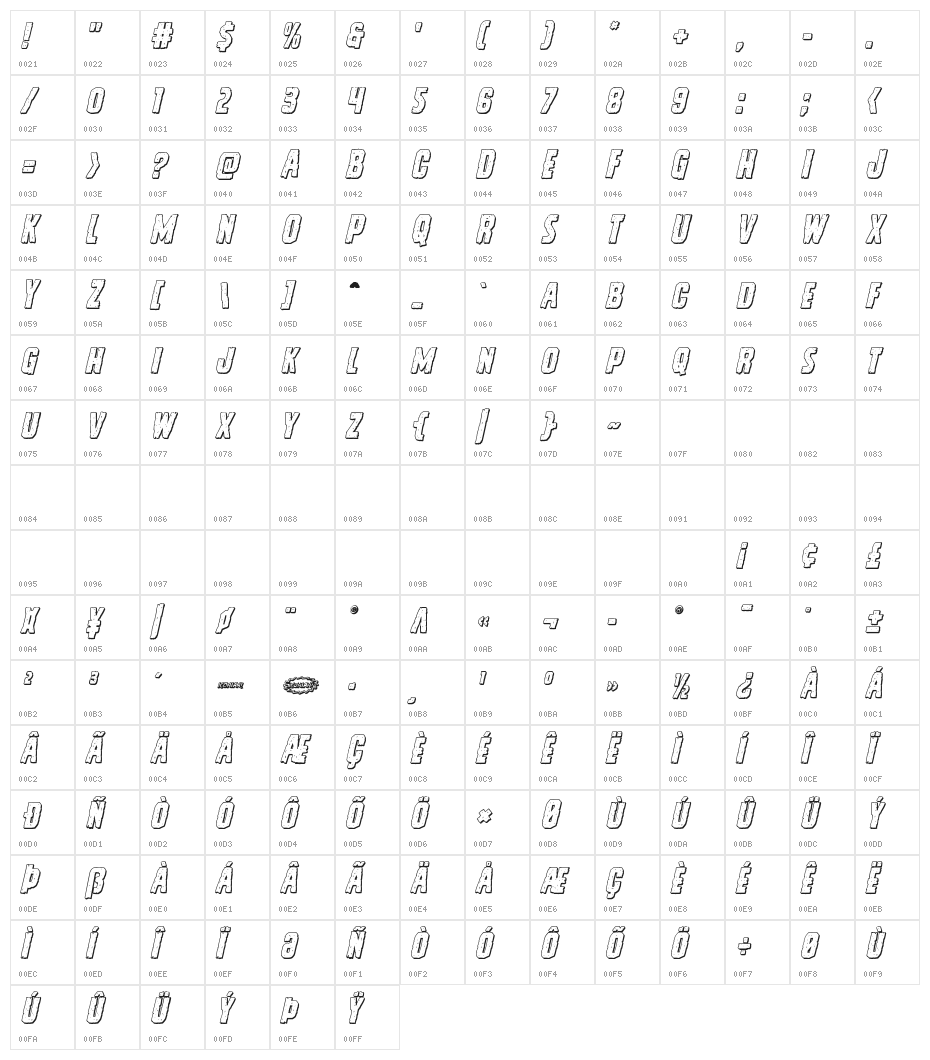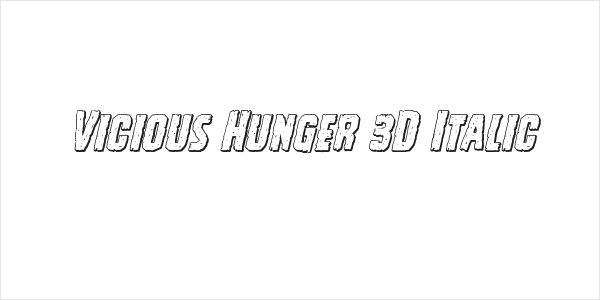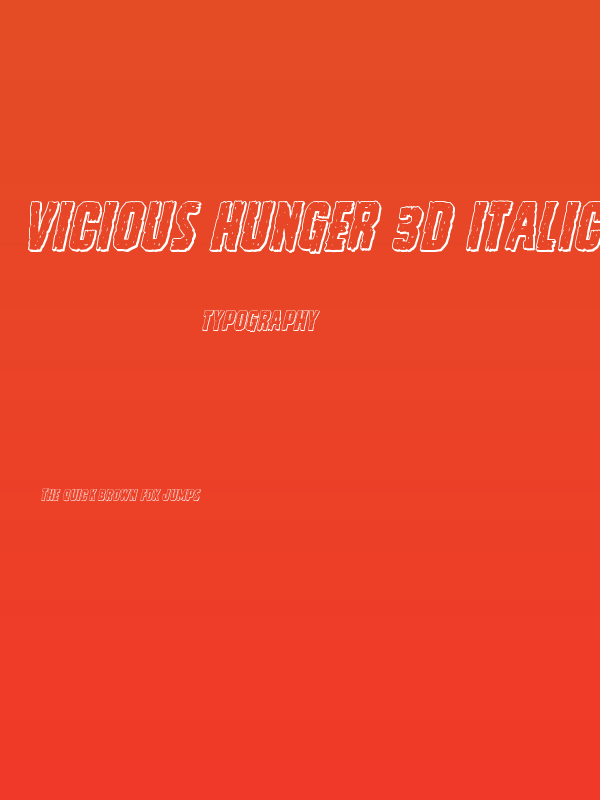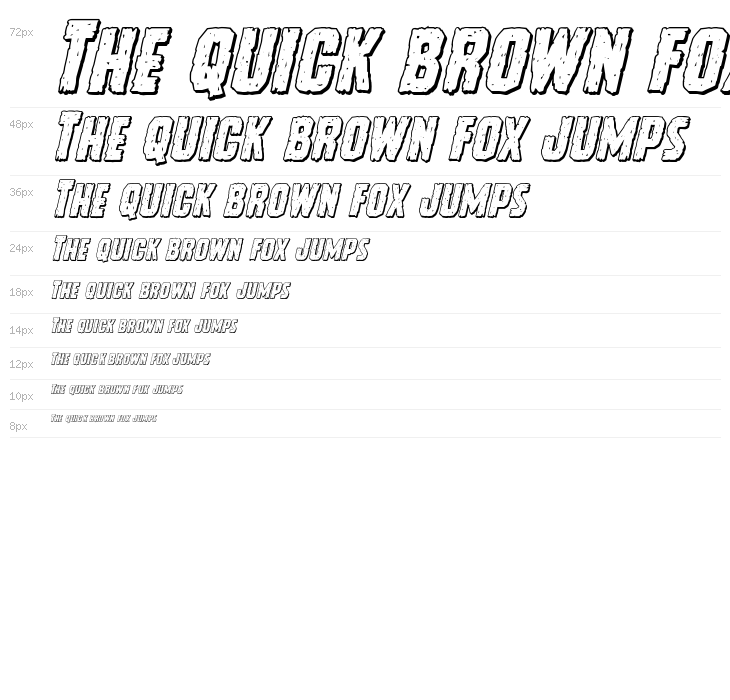
Vicious Hunger 3D Italic Font
Vicious Hunger 3D Italic Description
This font features a bold, dynamic 3D effect with a rugged texture that gives it a distressed, edgy appearance. The letters are italicized, adding a sense of motion and urgency. Each character is outlined, enhancing the three-dimensional look, and the rough edges contribute to a gritty, rebellious style. The uppercase and lowercase letters maintain a consistent design, while the numbers and special characters are equally bold and textured, making them stand out. This font is perfect for projects that require a strong, impactful visual statement.
| Proposed Projects | Ideal for posters, album covers, video game graphics, and any project needing a bold, edgy aesthetic. |